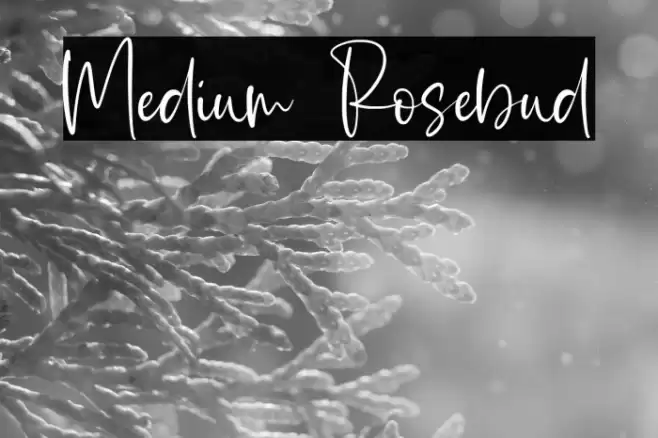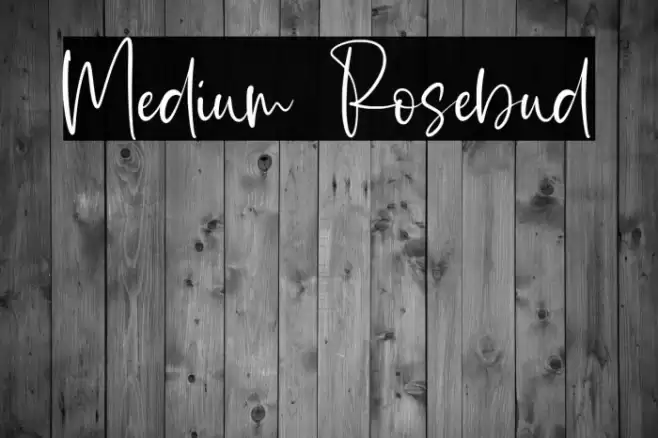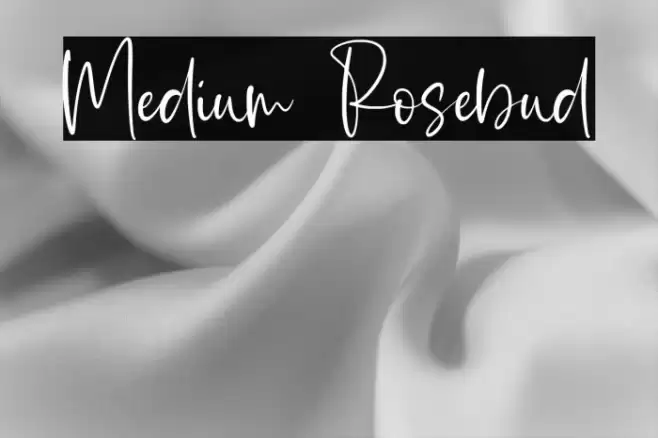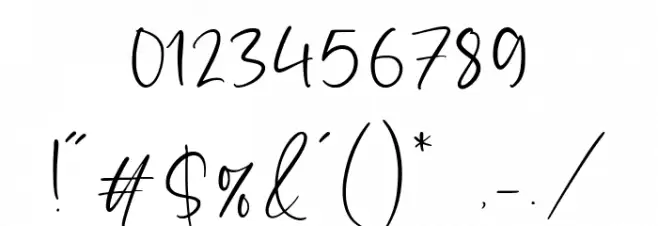
Medium Rosebud Font
Medium Rosebud Description
This font exudes a playful and artistic vibe, characterized by its fluid, handwritten style. The letters are elegantly elongated with a slight slant, giving them a dynamic and lively appearance. The strokes vary in thickness, adding a touch of spontaneity and charm. The uppercase letters are bold and expressive, while the lowercase letters maintain a more delicate and whimsical feel. The numbers and special characters follow the same artistic theme, making this font versatile for creative projects. Its overall aesthetic is both modern and artistic, perfect for adding a personal touch to any design.
A playful, handwritten font with fluid, expressive strokes from Regular fonts.
- Proposed Projects: Ideal for greeting cards, invitations, branding, and creative posters.
- Overall Style: Modern, Artistic
- Use Case: Logos, Headlines, Creative projects